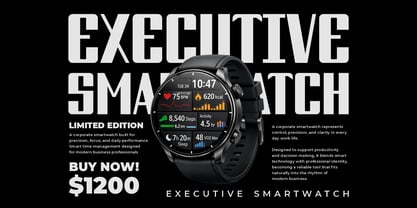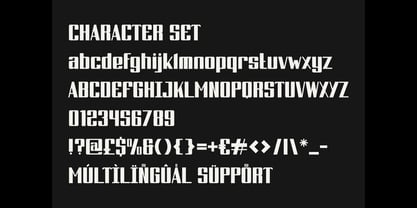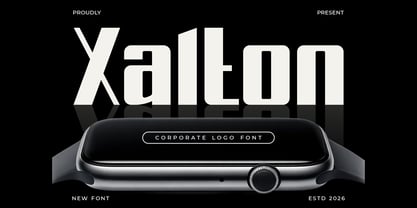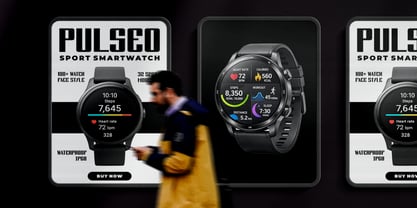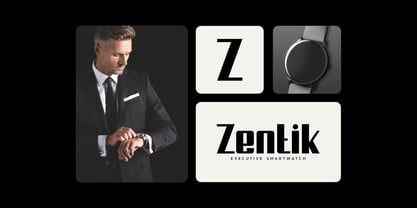
Xalton
The Xalton Font Family was designed by Yesie Erma Yunita and published by Shanaf. Xalton contains 1 styles. More about this family
Xalton Corporate Logo Font is a bold modern display typeface designed for professional branding. The letterforms feature strong geometric construction with thick, stable strokes. Each character appears tall with firm vertical proportions and structured alignment. The edges look clean and straight, creating a sharp and precise visual impression. Rounded inner counters balance the rigid outer structure and improve readability. Stroke weight remains consistent across letters, forming a powerful typographic presence. Xalton Corporate Logo Font blends modern corporate style with a subtle technological tone. The design communicates confidence, innovation, and clarity. This typeface works perfectly for corporate logos, technology branding, and modern business identities. The bold geometric structure creates a strong voice for professional design projects. Designers can apply this font to logo design, branding systems, and corporate identity materials. It performs well for advertising headlines, business presentations, and promotional graphics. The clear shapes support themes related to modern technology and digital products. Companies in software development, technology startups, electronics, and digital services can benefit from this style. Xalton Corporate Logo Font also fits poster titles, magazine covers, book titles, packaging labels, and marketing campaigns. The firm character shapes maintain readability for large headlines and brand marks. This typeface helps businesses create a modern and structured visual presence.